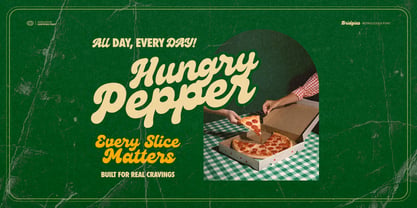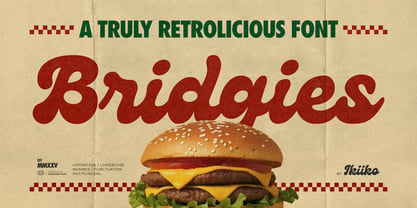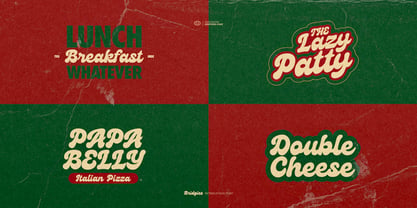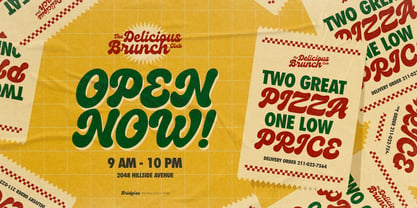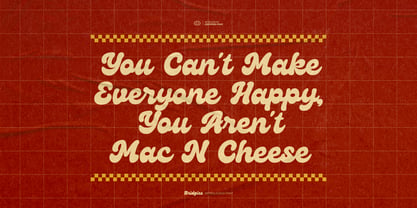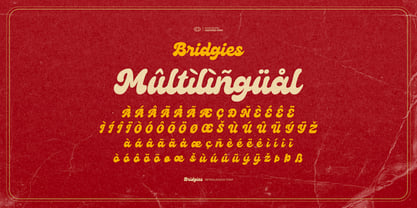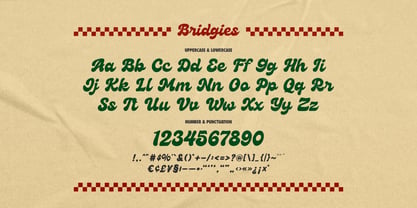
Bridgies
by IKIIKOWRK
The Bridgies Font Family was designed by Andhika Pradana and published by IKIIKOWRK. Bridgies contains 1 styles. More about this family
Proudly Present Bridgies - Retrolicious Font, created by ikiiko. Bridgies is a hipster-charged, edgy display type that drips with retro cool and delicious attitude. Inspired by 80s retro posters and funky diner signage, this bold and fancy script font brings instant boogie energy to your designs. Every curve is packed with playful vintage flavor and loud vibes, making it perfect for logos, posters, branding, merch, packaging, and social media that crave a nostalgic yet fresh punch. Built for creatives who love character and impact, this font is easy to use and instantly stands out, helping your messages feel more alive, expressive, and unforgettable. Bridgies delivers smooth rhythm, eye-catching flow, and irresistible character — a true retro statement for designers who want their typography to taste as good as it looks. What's Included? :: Uppercase & Lowercase :: Numbers & Punctuation :: Multilingual Support :: Works on PC & Mac Get also a good offer & FREEBIE at our site Enjoy our font and if you have any questions, you can contact us by email
Designers: Andhika Pradana
Foundry: IKIIKOWRK